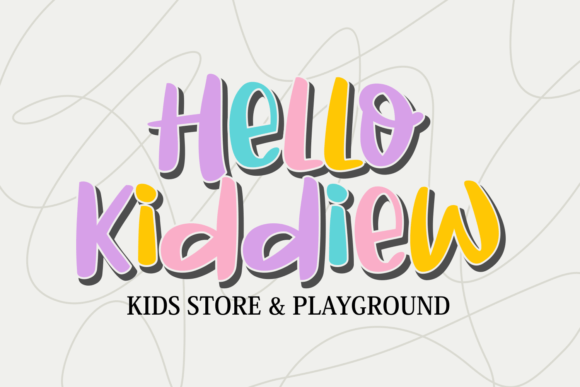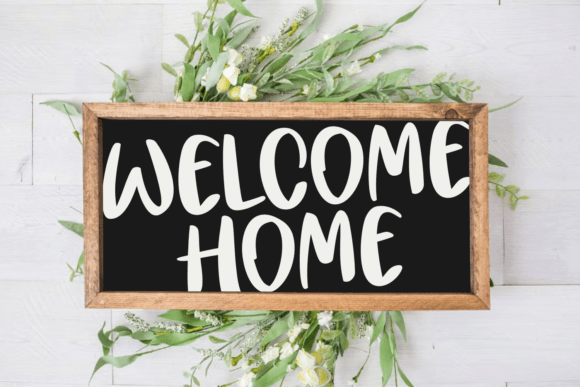
Mango Quirky Font
Mango Quirky is an adorable handwritten font that adds a playful touch to your projects. With its cute and whimsical style, it brings a sense of fun to any design. Perfect for invitations, cards, and more, Mango Quirky adds a charming flair to your text with its unique handwritten feel.